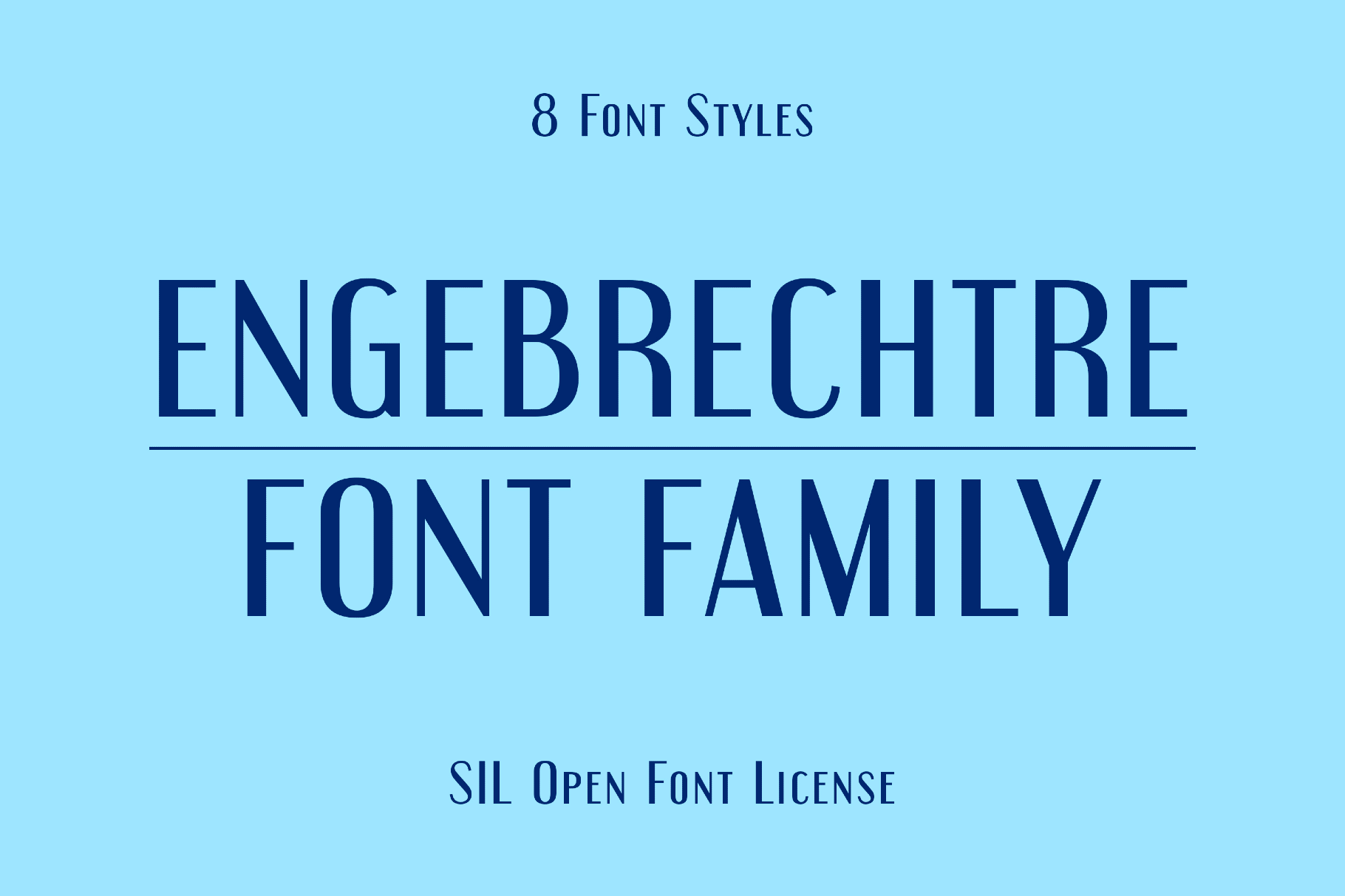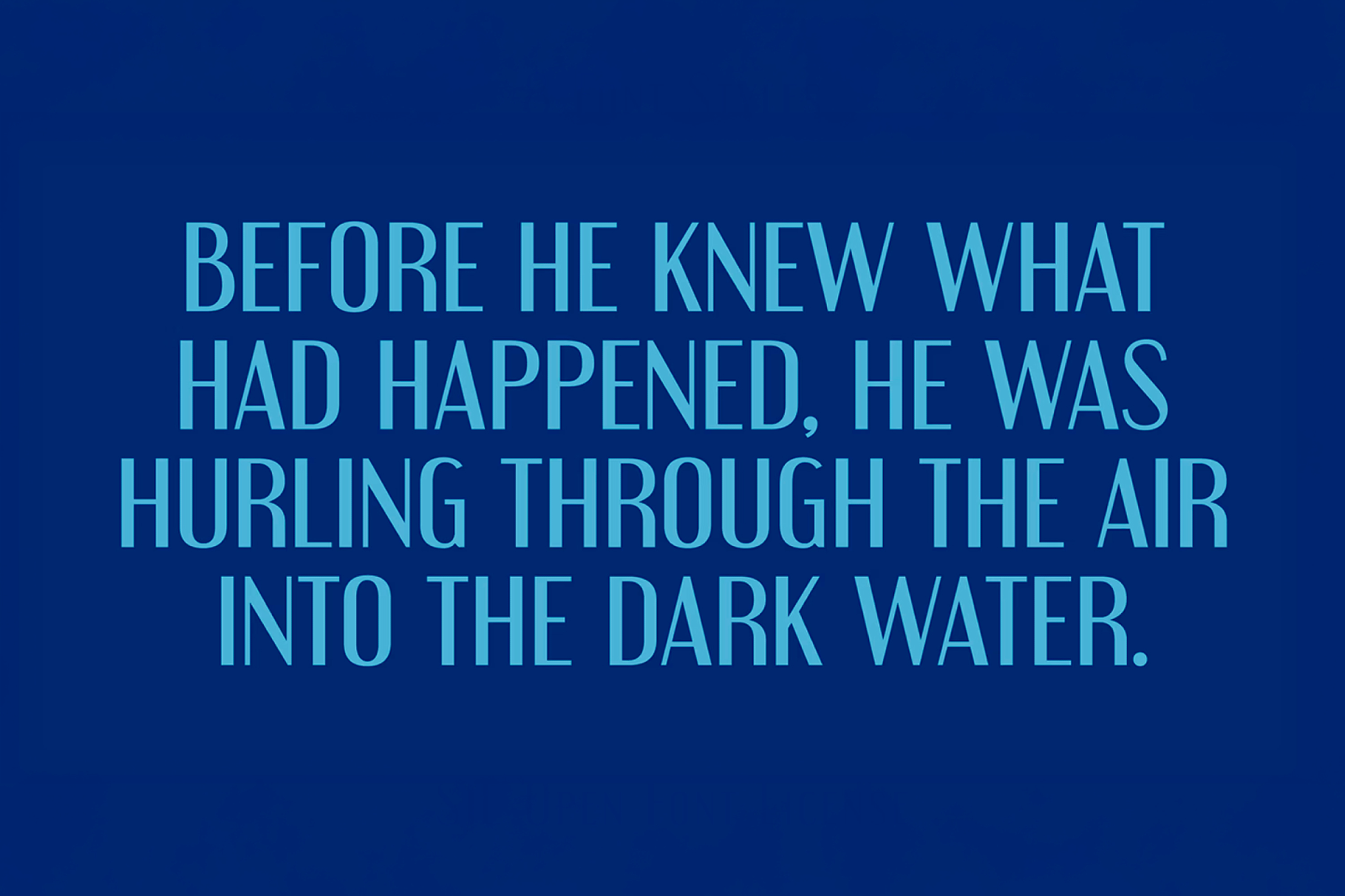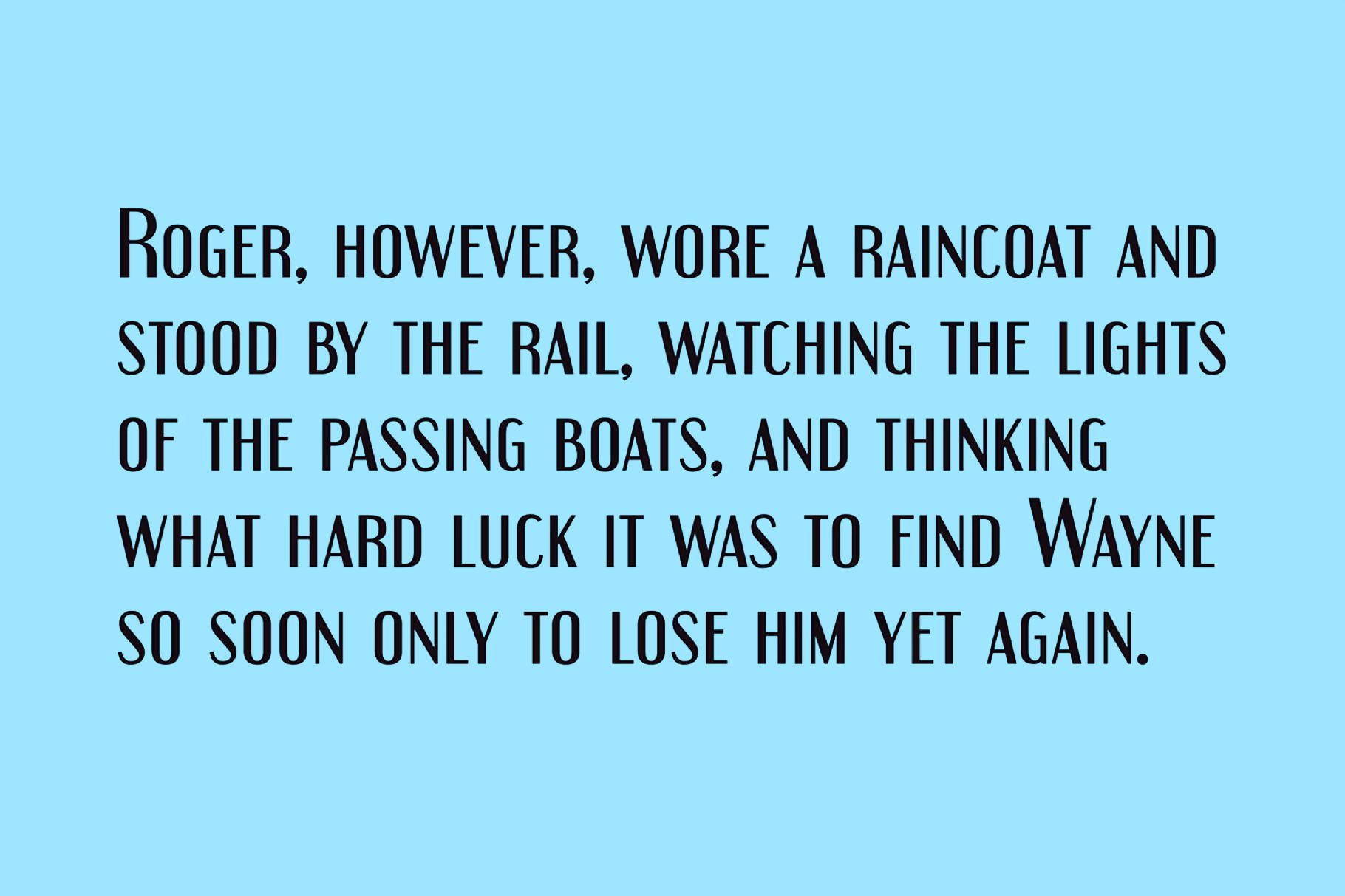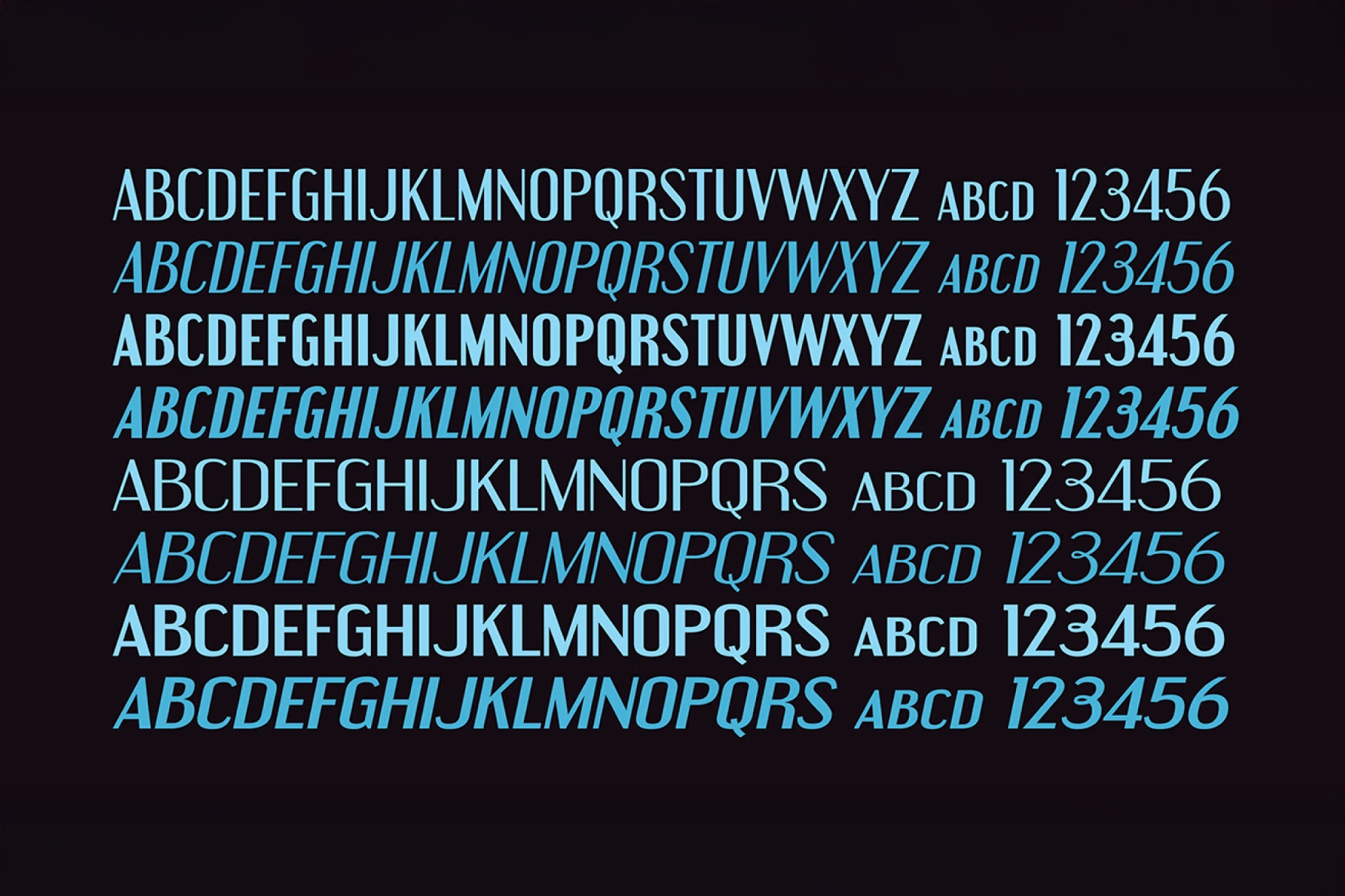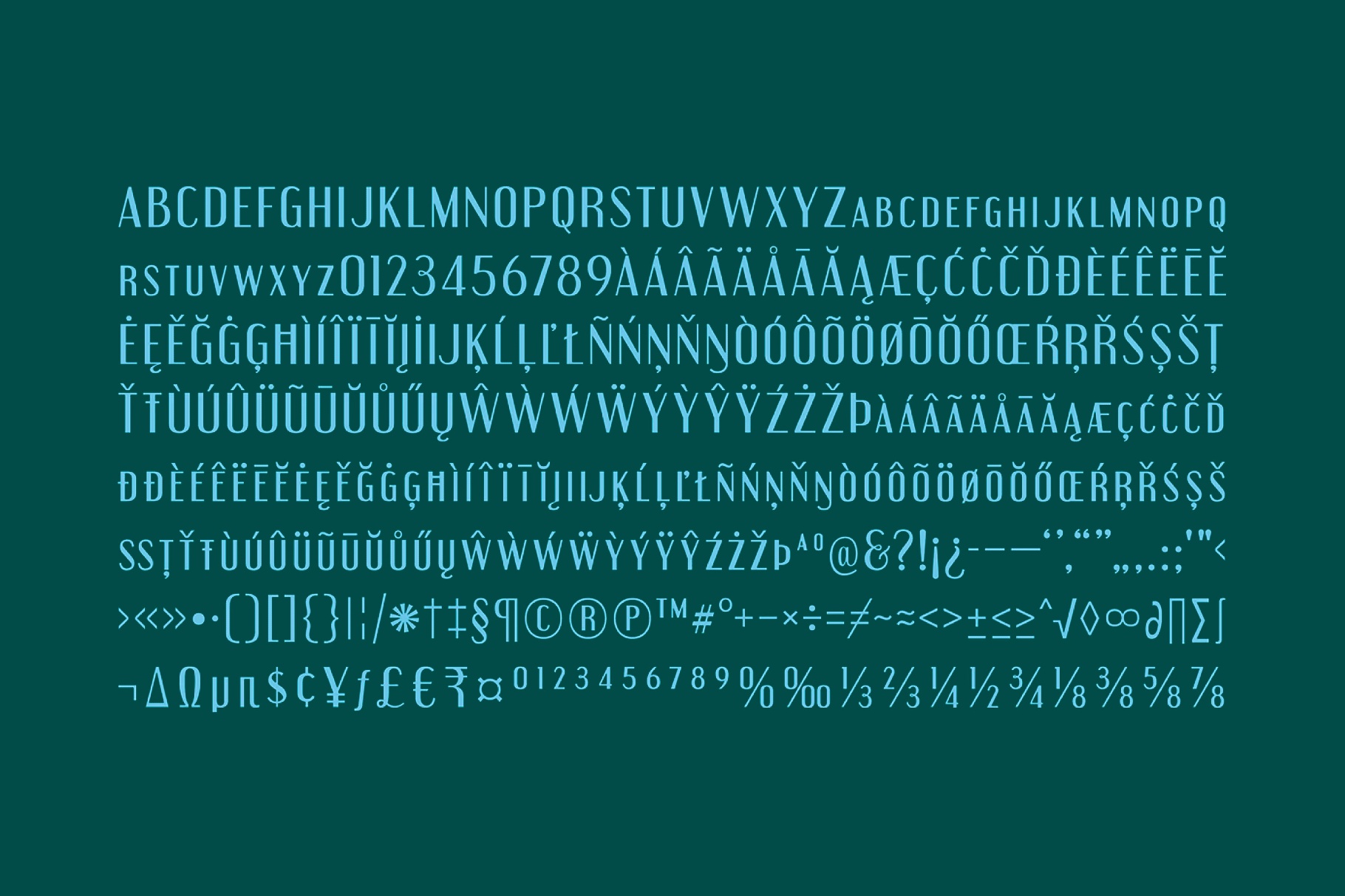
Engebrechtre Font Family
Engebrechtre font family packs compressed, angular letterforms that echo late-80s sci-fi interfaces and racing graphics, with an industrial sci-tech edge. The sharp geometry and tight rhythm suit gaming or esports logos, tech and hardware branding, sci-fi book covers, movie titles, posters, UI overlays, sports graphics, dashboard typography, and editorial headlines built from compact all-caps wordmarks.
• Eight styles.
• Uppercase and lower uppercase letters.
• Numbers, punctuation, and symbols.
• Multilingual coverage across extended Latin scripts.
• Extended support for mathematical symbols and metrics.